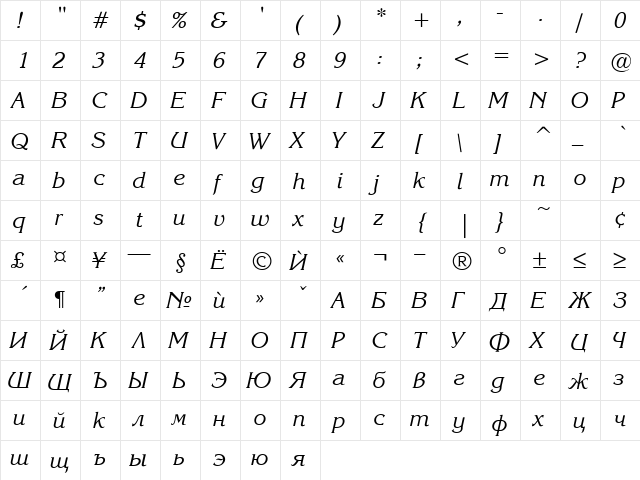
Karina Rus Italic
Design Context for Karina Rus Typeface
Karina Rus offers clean, dependable letterforms without strong stylistic allegiance, making it a practical choice for designers who need flexibility. Its italic angle brings a sense of urgency and motion to the letterforms.
Pro Tip: Try Karina Rus for annotation and caption copy alongside an upright companion — the contrast in angle creates a dynamic but ordered typographic system.